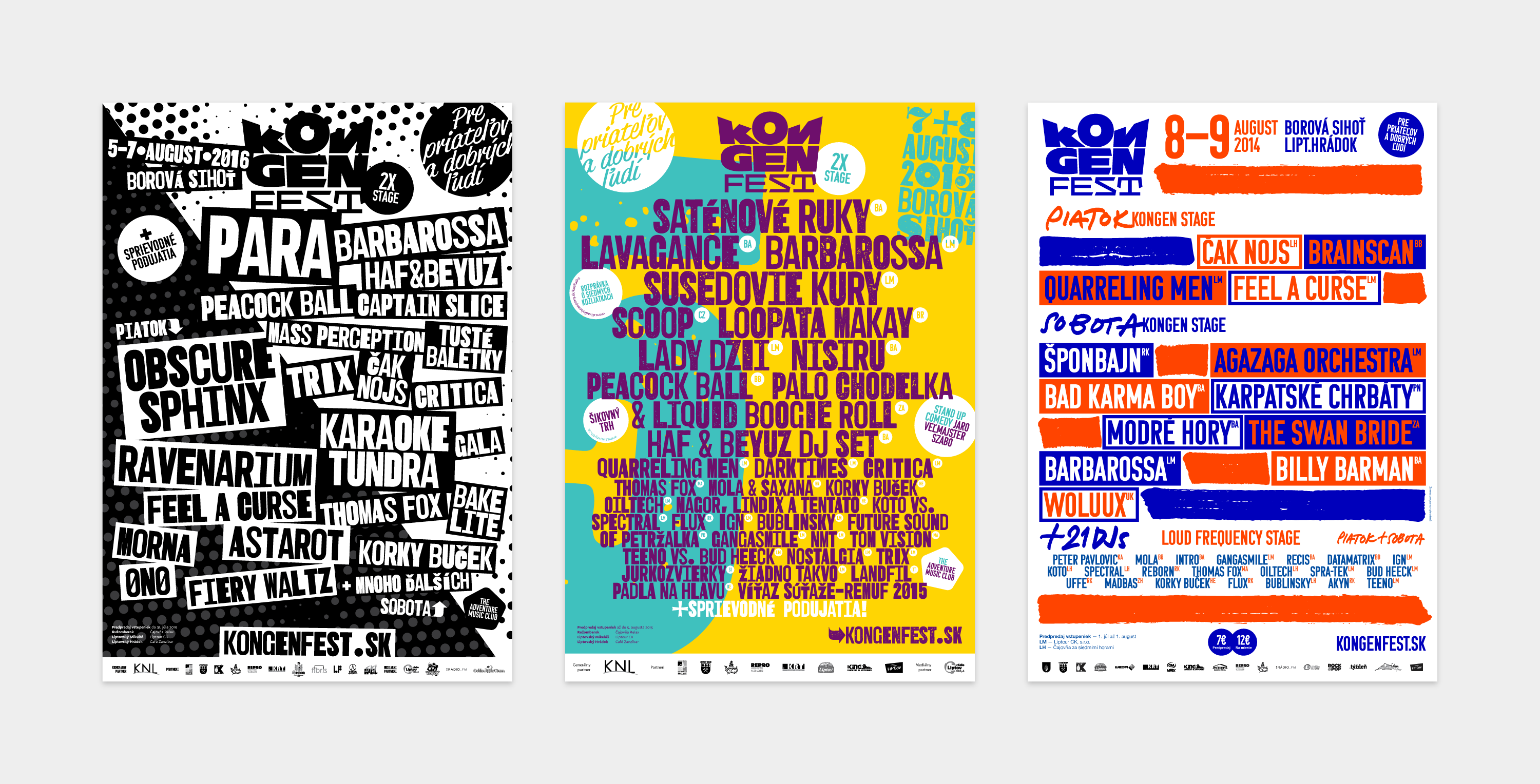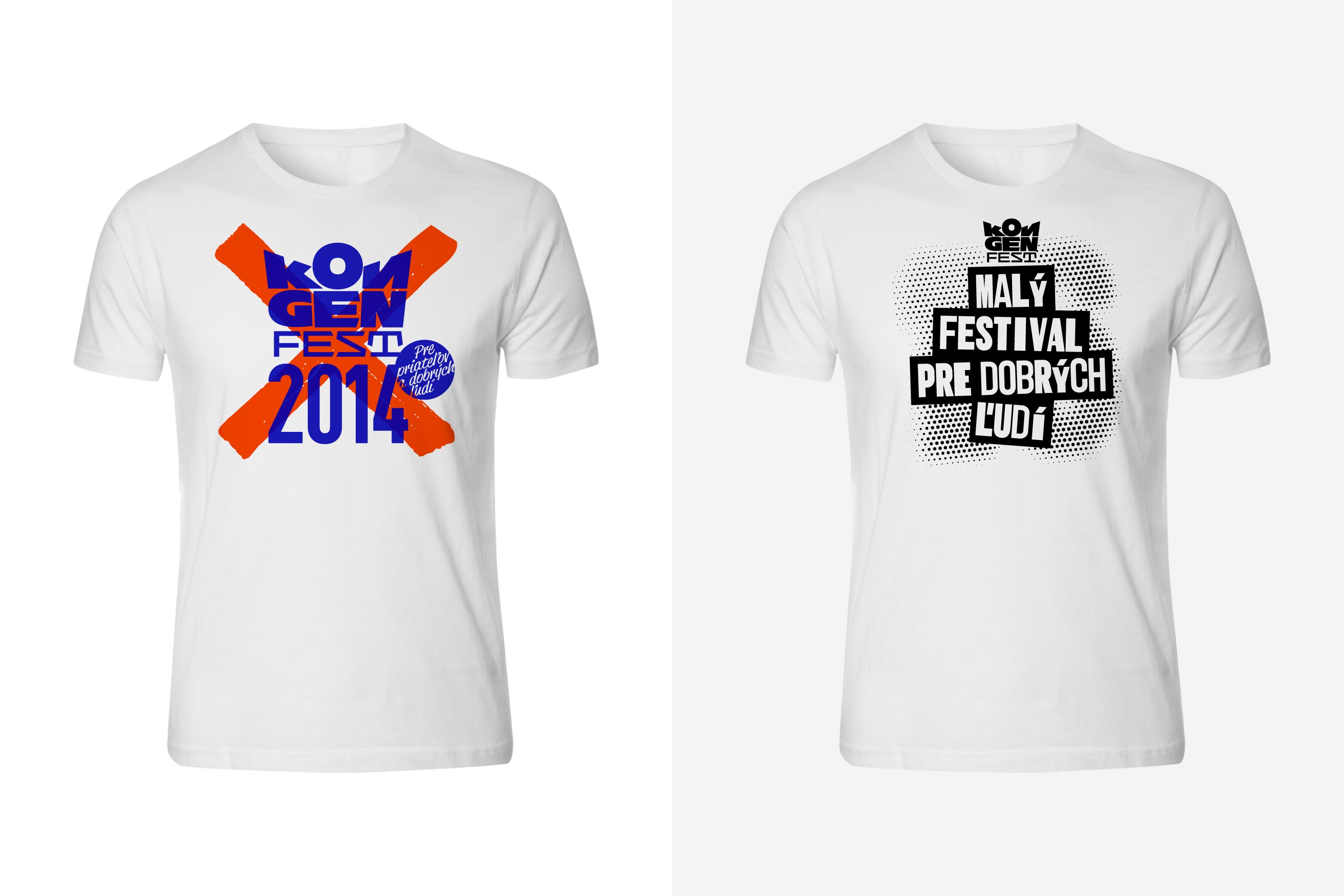
Kongenfest
A logo for a small music festival held on the first weekend every August in my hometown of Liptovský Hrádok, Slovakia. With average attendance of only around 300, the festival is organized by my friend, who used his nickname “Kongen” as a name of the festival. Meaning “king” in Danish, the logo takes up a shape of a crown.
In contrast, the promotional materials and applications use rather rough, but fun and colorful aesthetic.